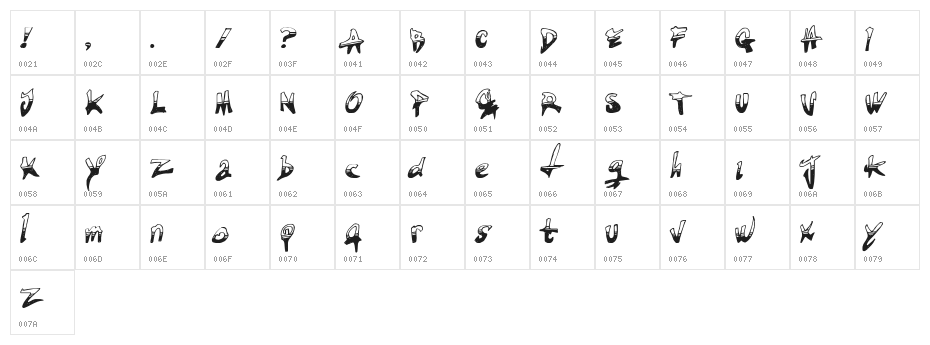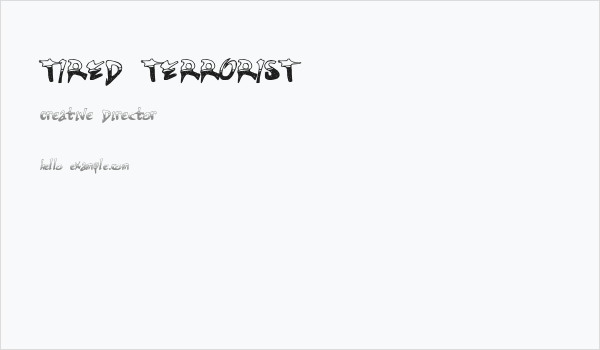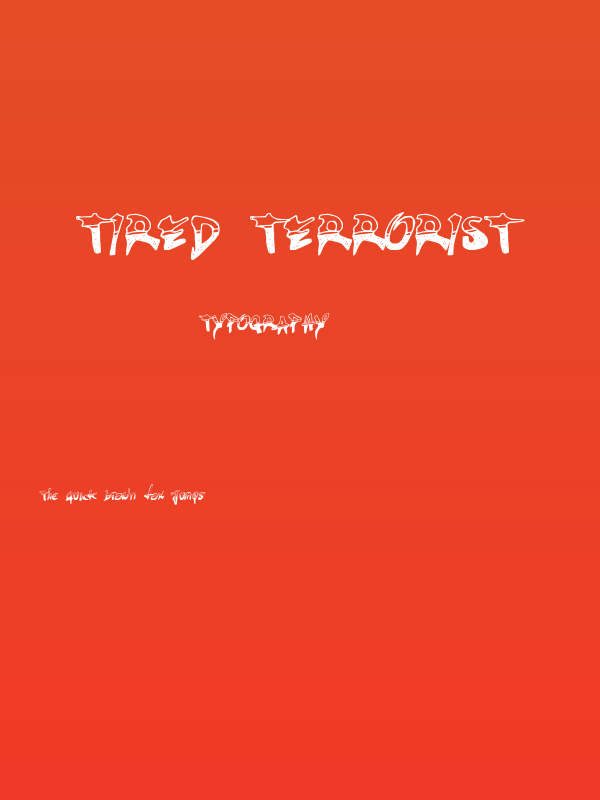
TIRED TERRORIST Font
TIRED TERRORIST Description
This font features a bold, graffiti-inspired style with dynamic and energetic strokes. The uppercase and lowercase letters exhibit a playful, urban aesthetic, characterized by sharp angles and varying line thicknesses. The font's design incorporates a sense of movement and spontaneity, making it visually striking and attention-grabbing. The characters are uniquely crafted, with some letters having exaggerated curves and others featuring pointed edges. This font is perfect for projects that require a bold and edgy look, such as street art, posters, or music album covers.
Overall StyleUrban, Edgy, Graffiti
Proposed ProjectsIdeal for street art, posters, music album covers, and edgy branding.